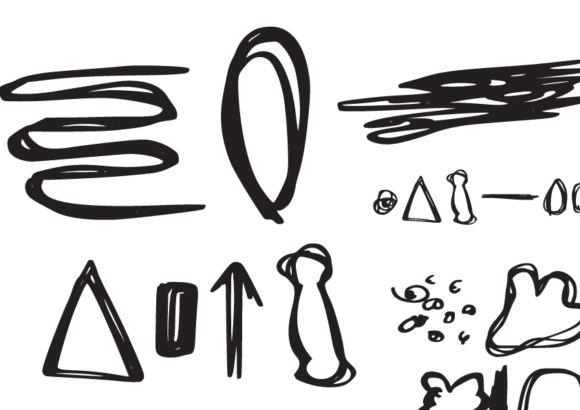
The Doodle Shapes Font: Adding a Hand-Drawn Touch to Your Designs
I’ll never forget the time I was working on a project for a client who wanted a design that felt “sketched” and “raw.” I scoured the internet for the perfect font, but nothing seemed to fit the bill. That was until I stumbled upon the Doodle Shapes Font. This dingbat collection has been a game-changer for my designs, and I’m excited to share it with you.
A Personal Review: What I Love and What I Don’t
- ✅ The hand-drawn and rough shapes give my designs a unique, organic feel.
- ✅ The font is incredibly versatile, making it perfect for a wide range of projects.
- ✅ The OpenType features and glyphs make it easy to customize and get creative.
A Few Quirks to Keep in Mind 🤔
- ⚠️ Some of the shapes can be a bit wonky, which might not be ideal for designs that require precision.
- ⚠️ The font can be a bit overwhelming if you’re not used to working with dingbats.
The Story Behind Doodle Shapes Font
The Doodle Shapes Font was created by a designer who wanted to capture the feeling of sketching and doodling. With a passion for hand-drawn design, the designer set out to create a font that would bring a raw, organic feel to designs. The result is a unique and versatile font that’s perfect for a wide range of projects.
Q: What is the Doodle Shapes Font?
A: The Doodle Shapes Font is a dingbat collection that features hand-drawn and rough shapes. It’s perfect for designs that require a raw, organic feel.
Q: Is the Doodle Shapes Font easy to use?
A: Yes, the Doodle Shapes Font is relatively easy to use, especially if you’re familiar with dingbats and OpenType features. However, it may take some time to get used to the font’s unique style and features.